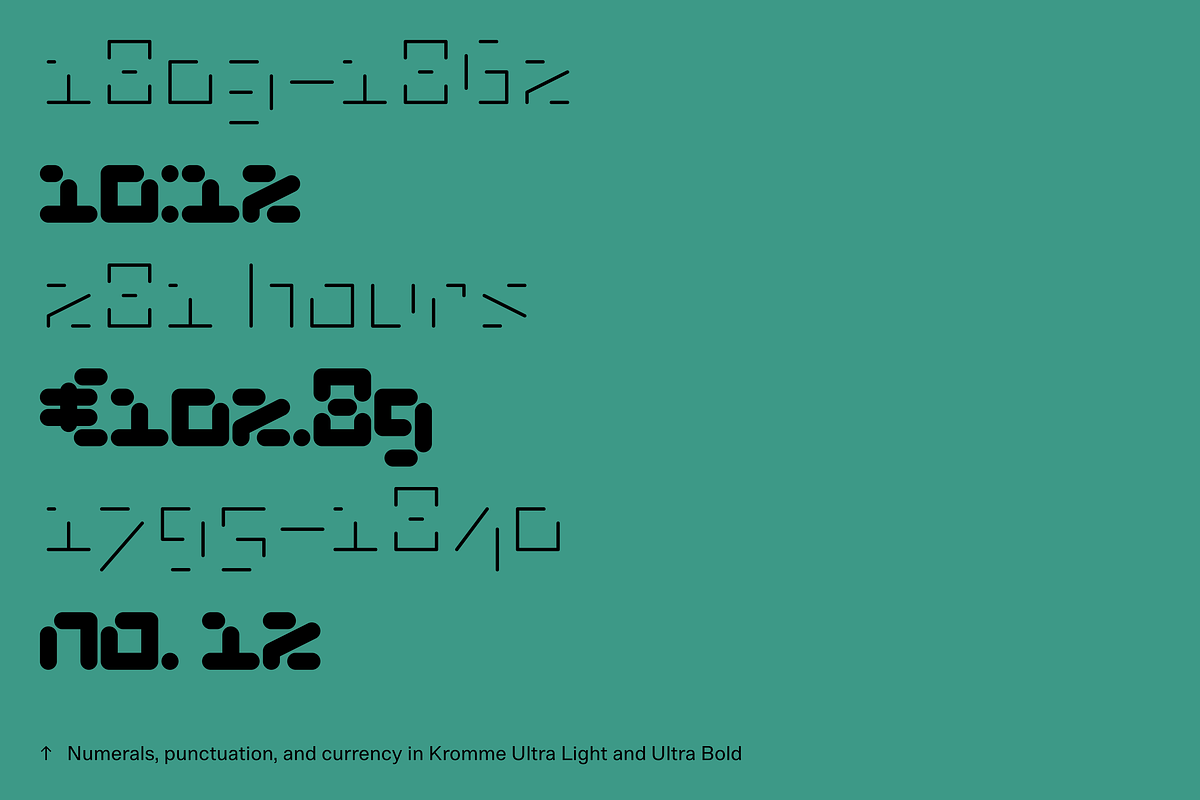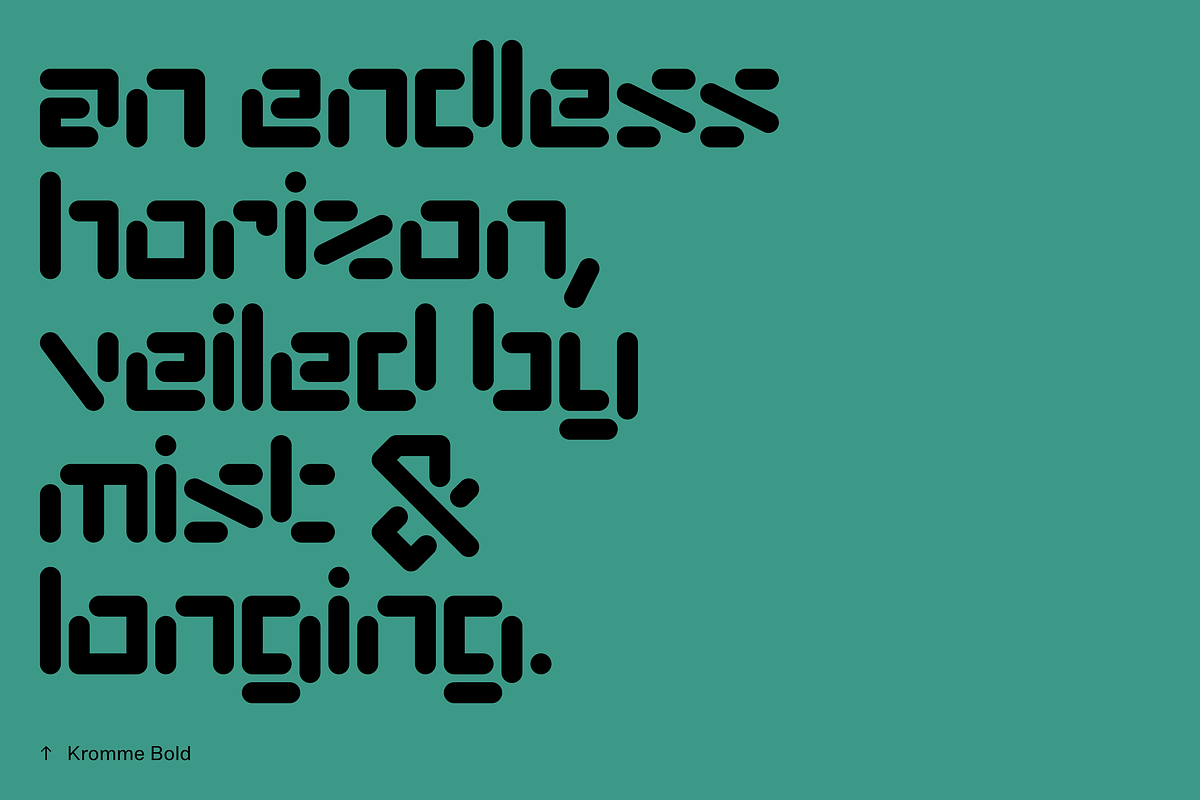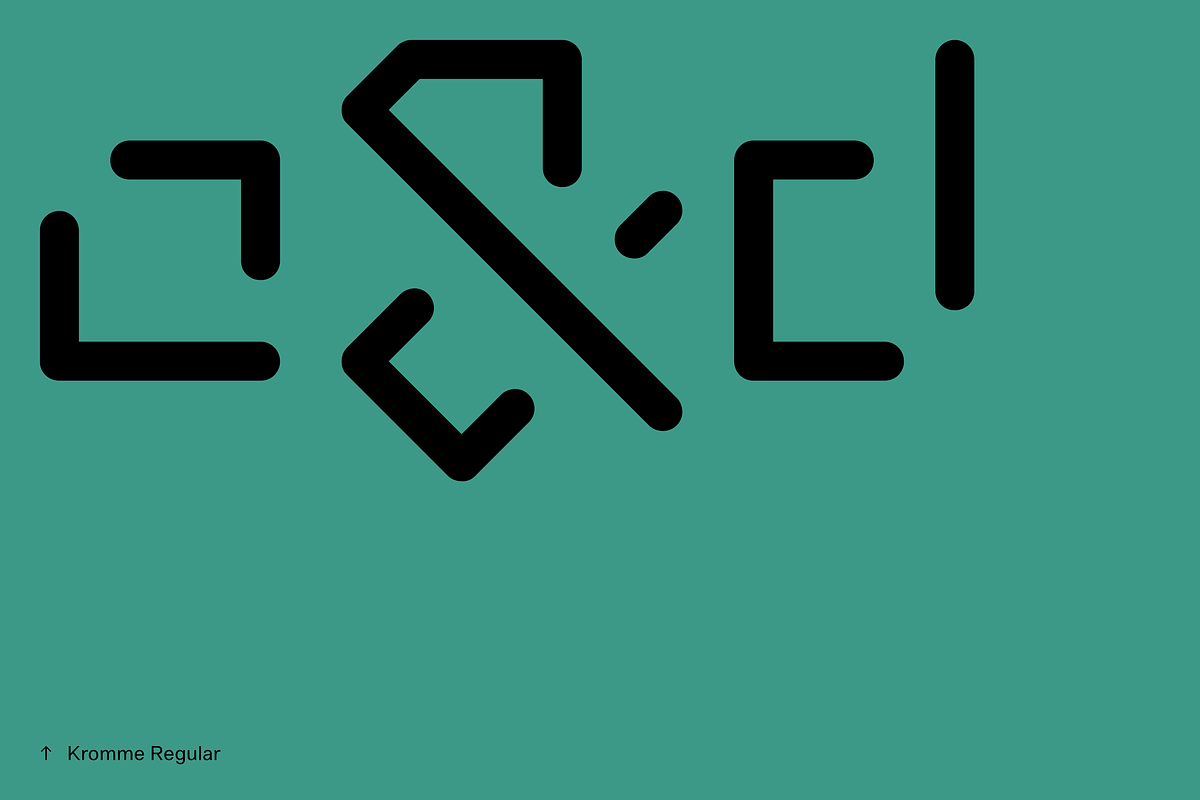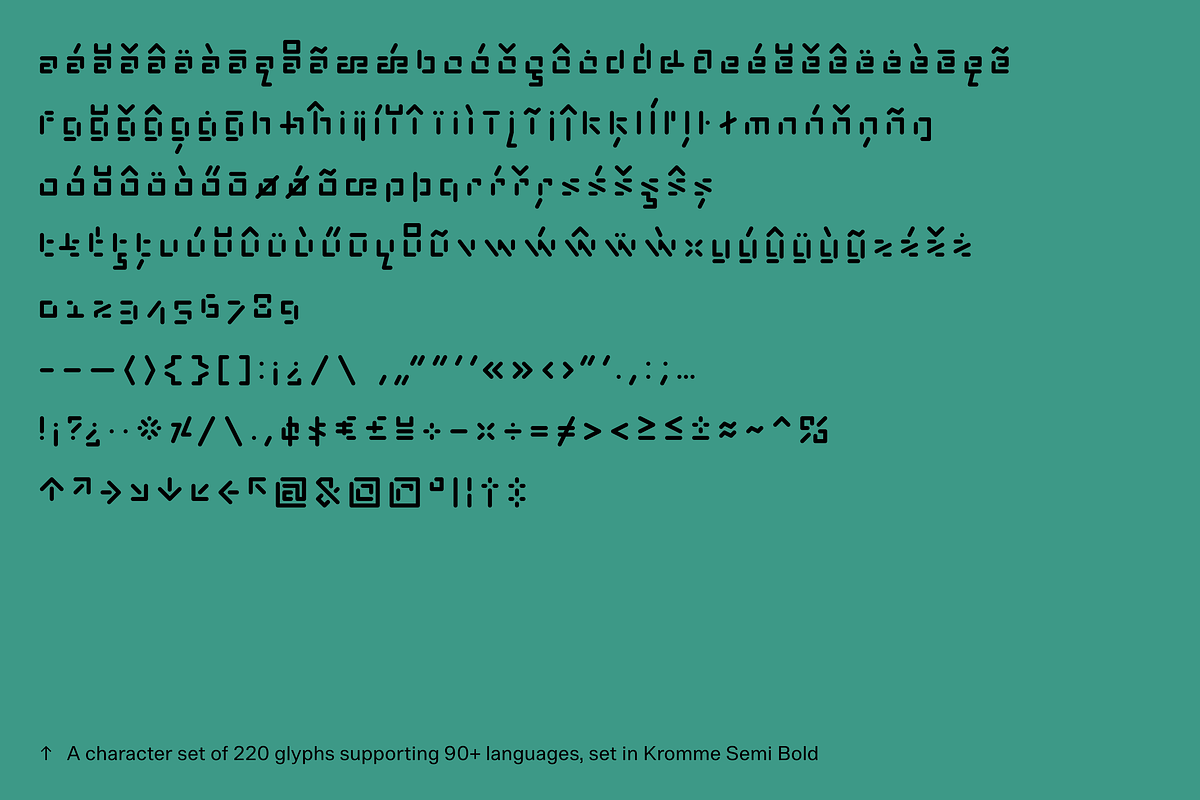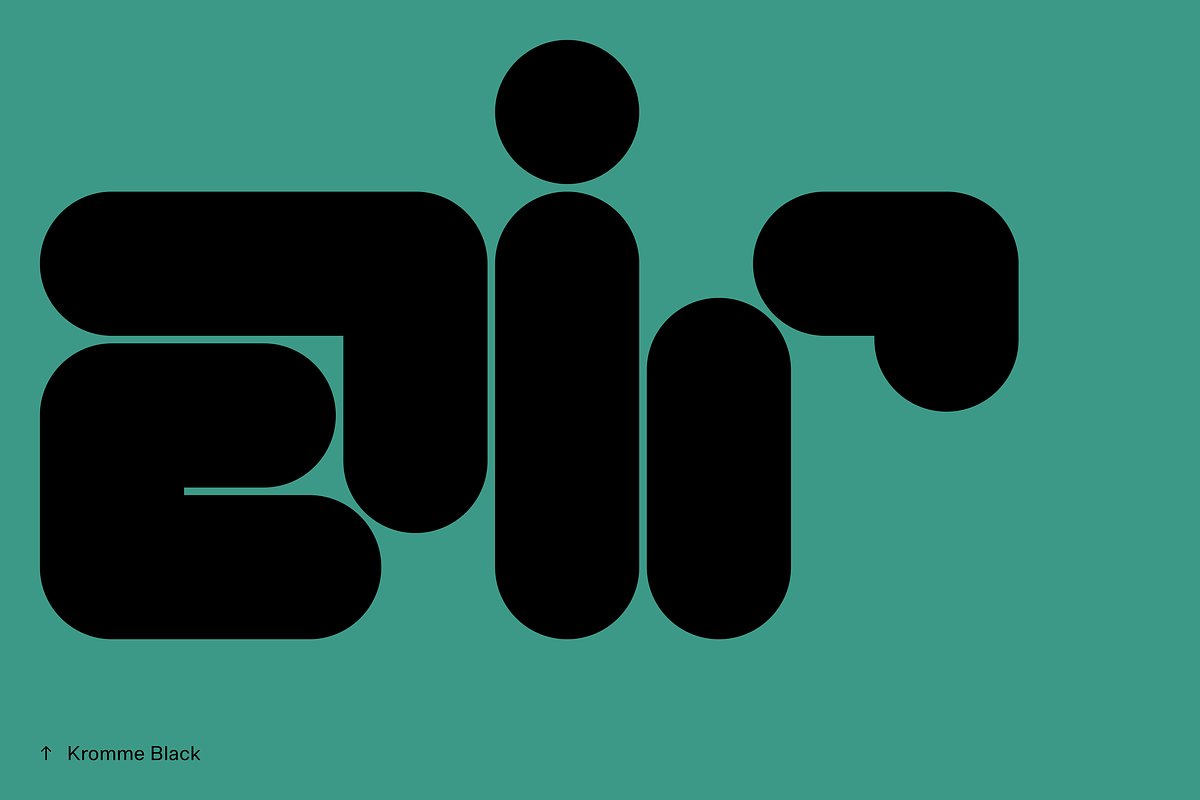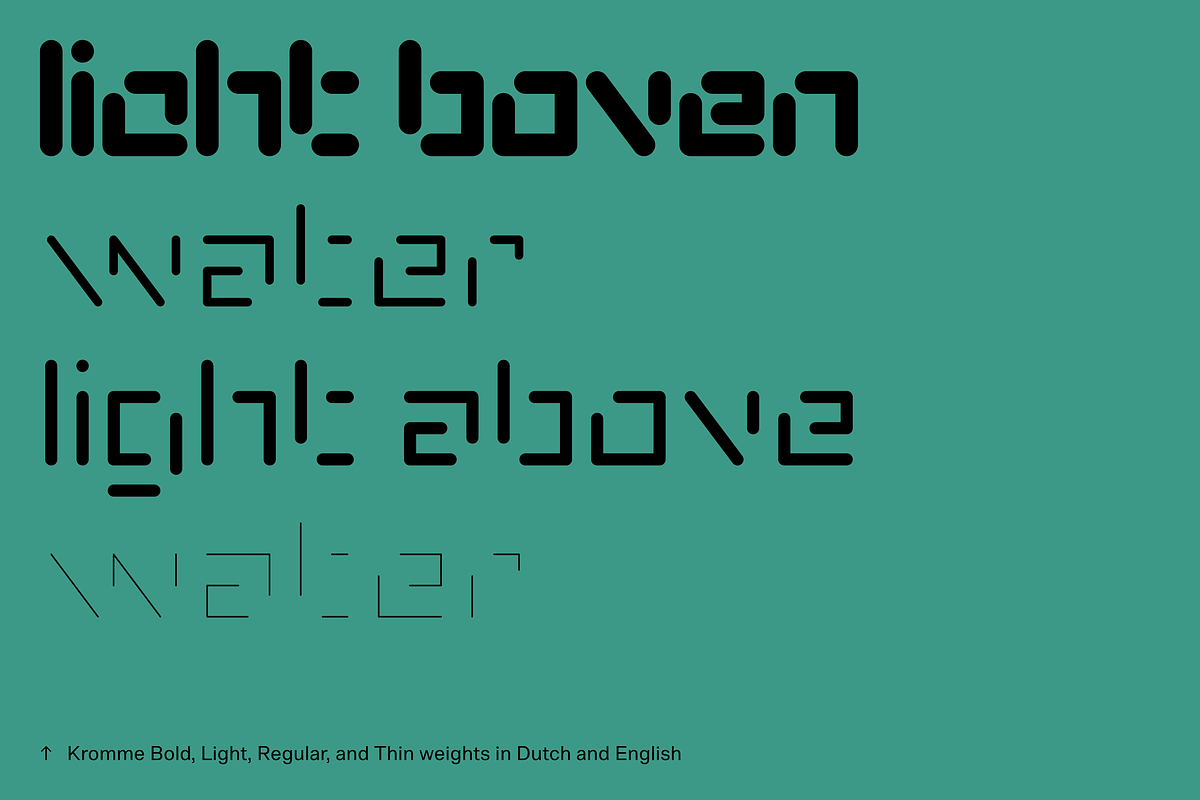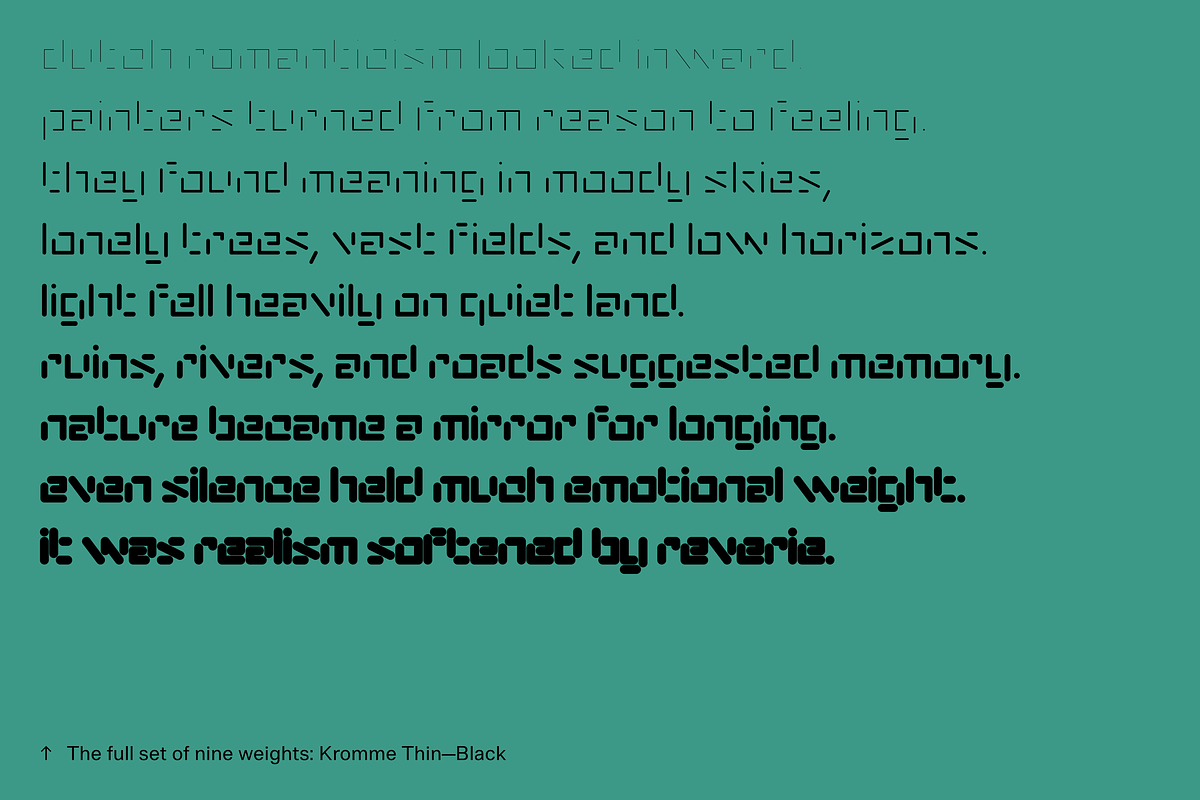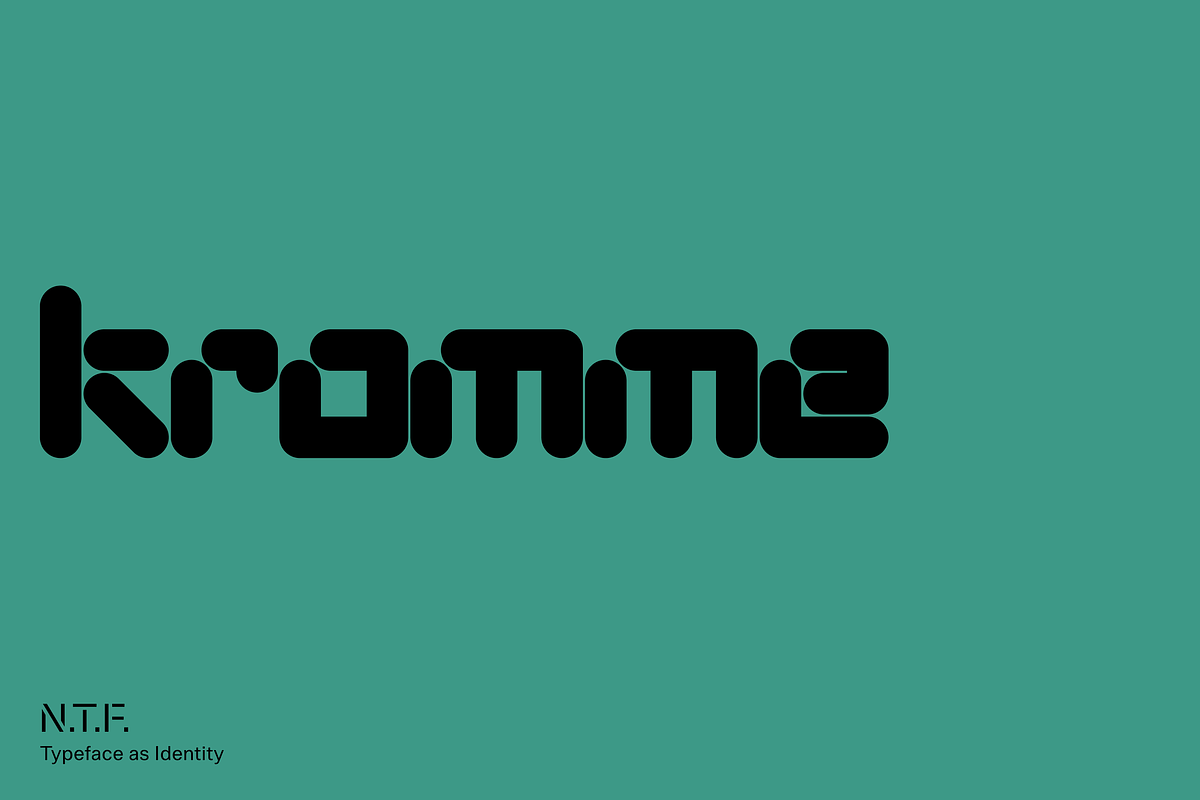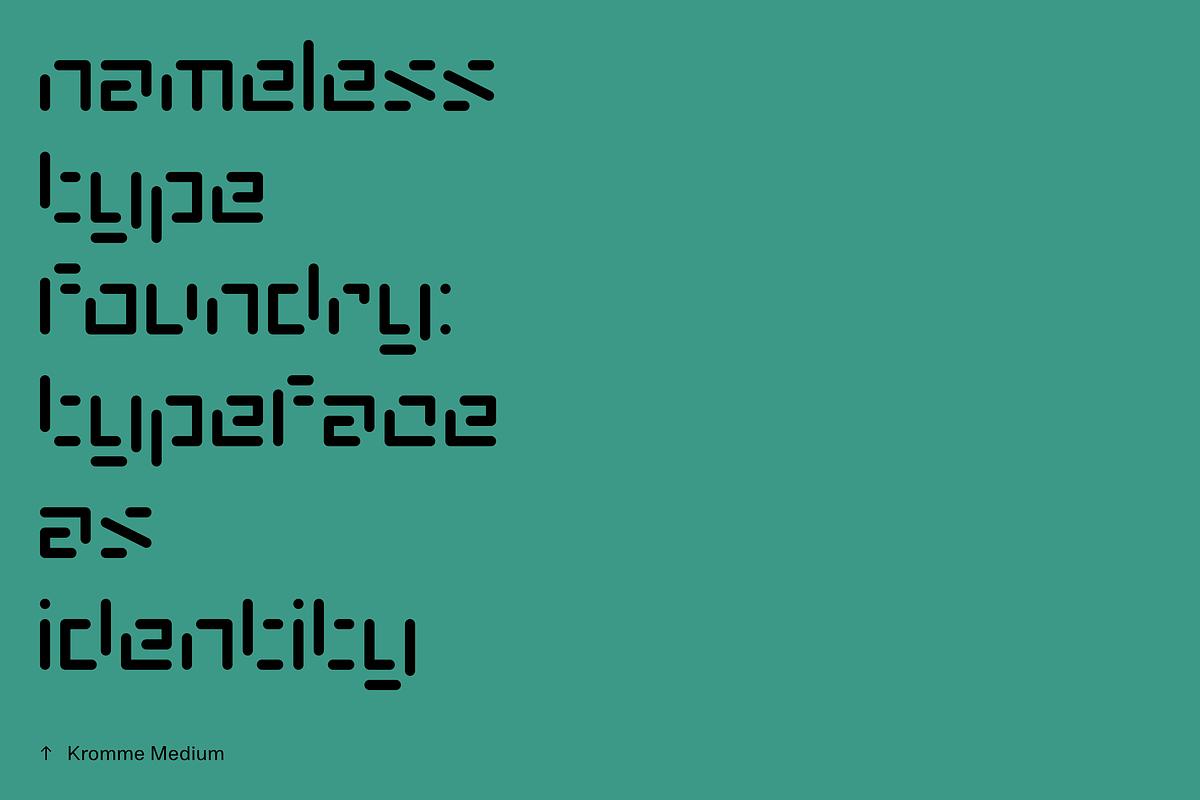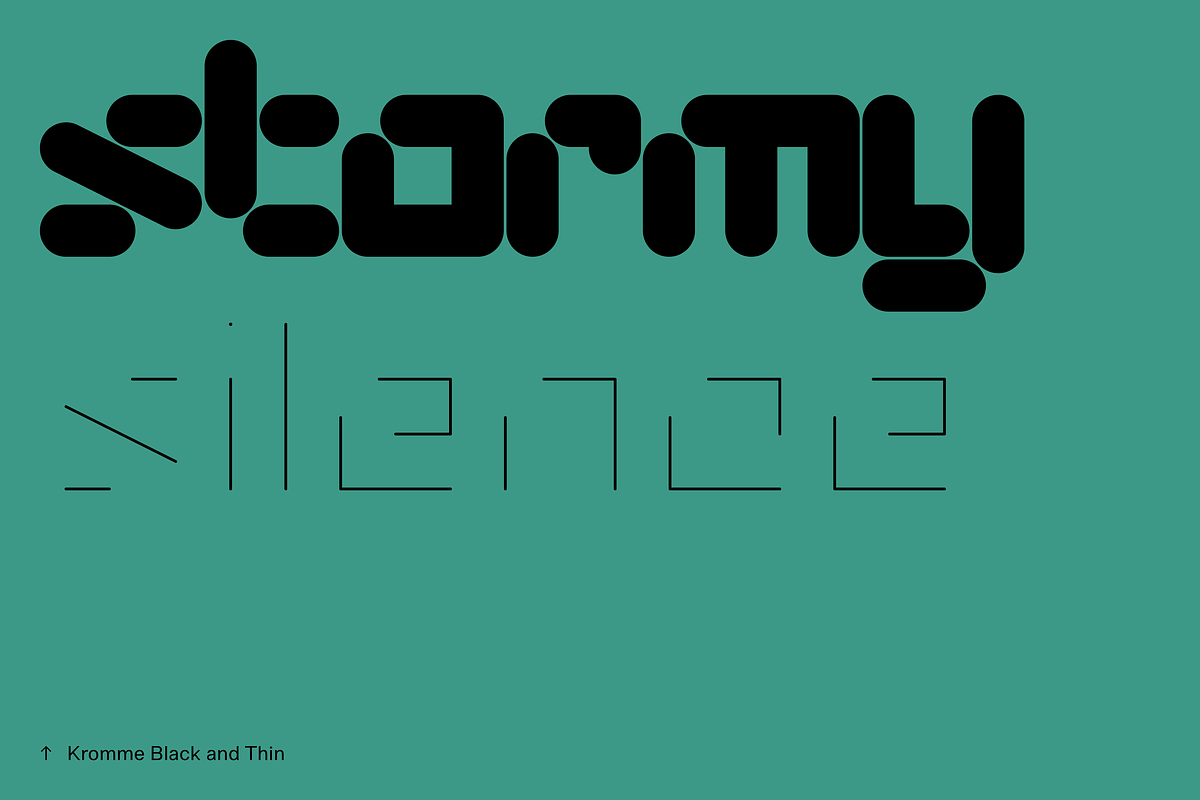
Kromme
Kromme is a proportional display typeface built on a rigid modular stroke system. Every character is constructed from a consistent set of geometric parts, producing a graphic rhythm that feels both mechanical and expressive. Across its nine weights—from Thin to Black—the structure remains unchanged, allowing for dramatic contrast between weights and precise control in layered compositions, typographic hierarchies, or weight-based animation systems.
The family takes cues from early 20th-century Dutch typographic systems, modular stencil lettering, and graphic experimentation rooted in grid-based design. The result is a typeface that sits somewhere between signage, alphabet experiment, and display utility—open-ended by design, and most effective at large sizes where its construction becomes part of the message.
Kromme contains over 230 glyphs, supporting 90+ languages, with a character set that includes punctuation, symbols, numerals, and basic diacritics. It’s best used where type becomes image, logic becomes pattern, or repetition becomes structure.